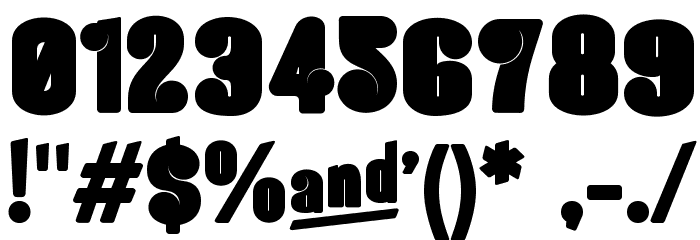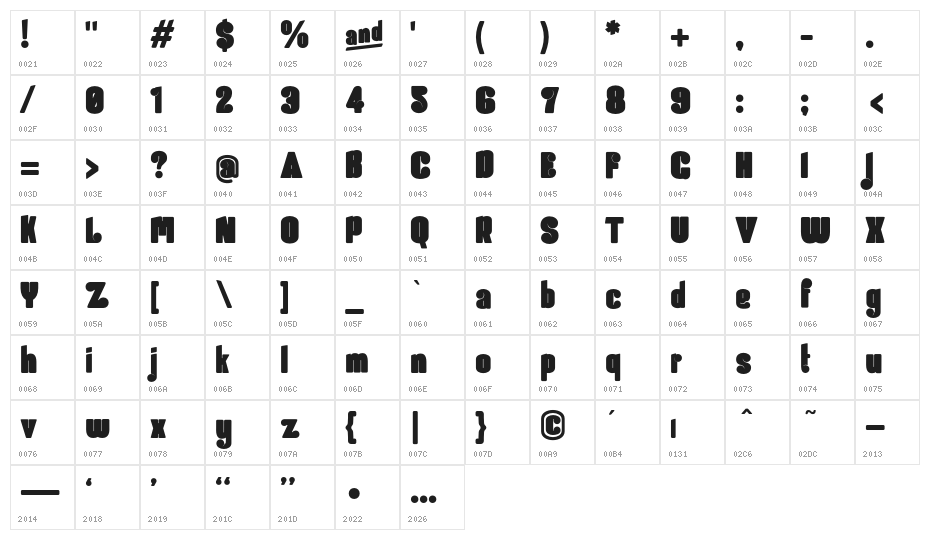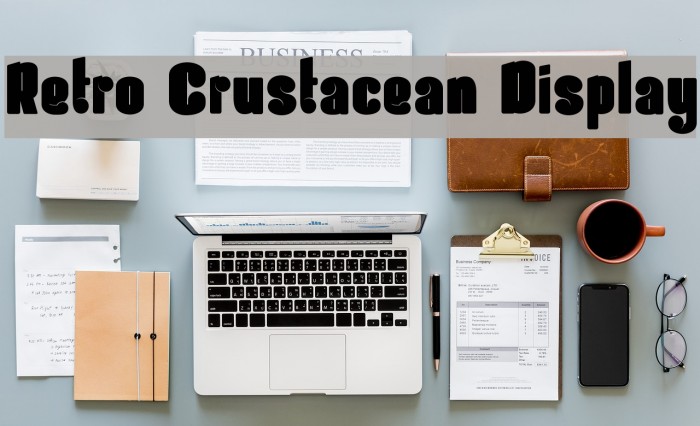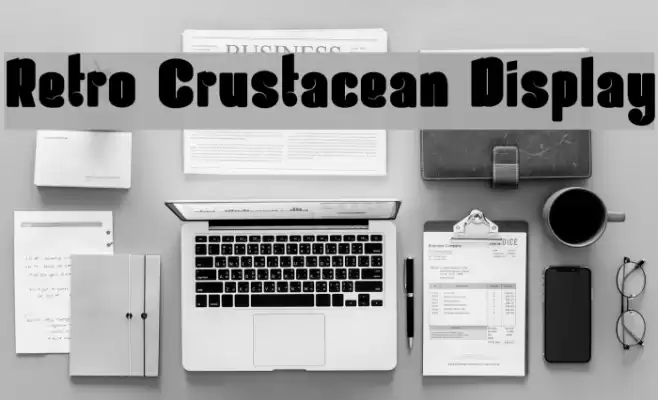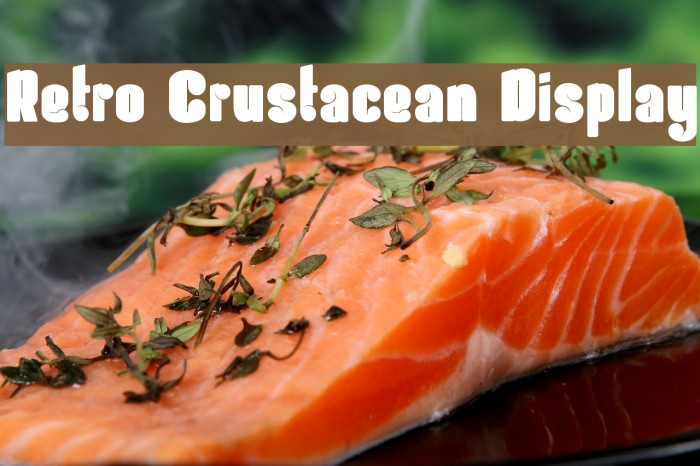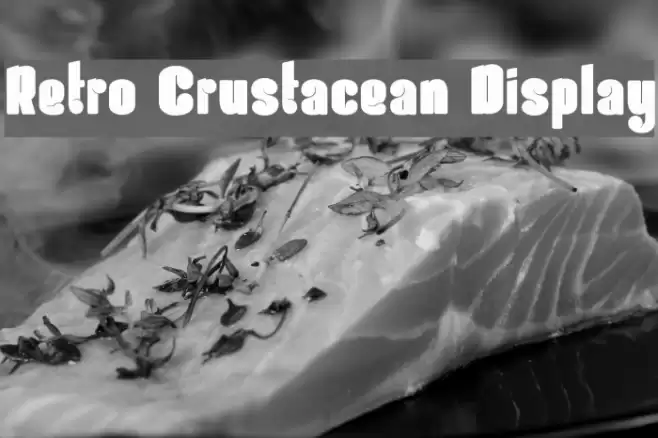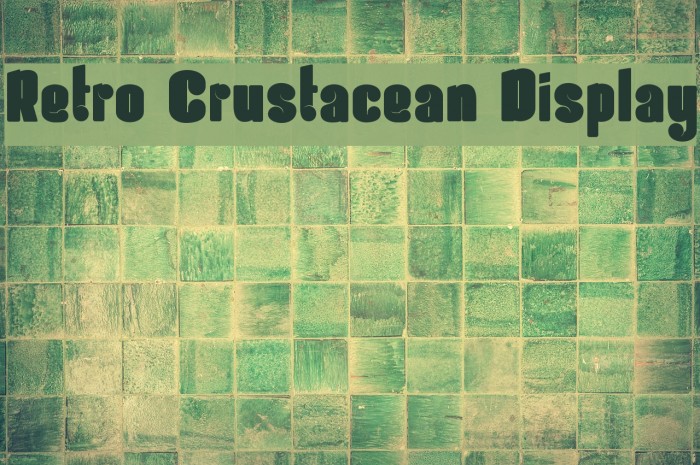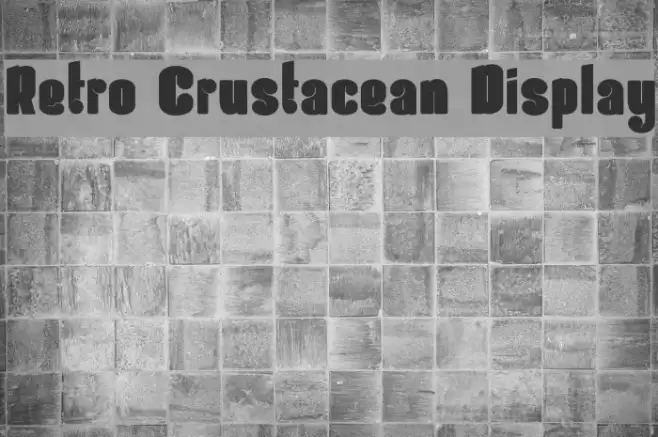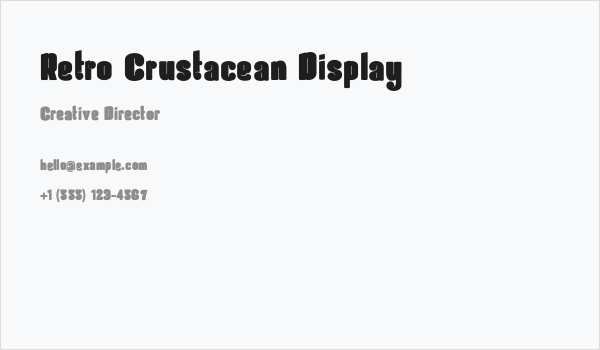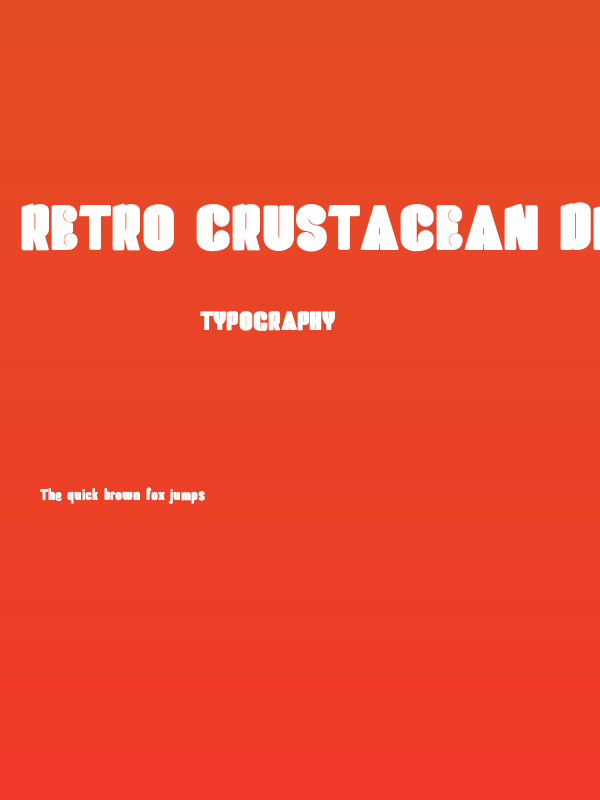
Retro Crustacean Display Font
Retro Crustacean Display Description
This bold and striking font features a unique blend of retro and modern aesthetics, characterized by its thick, rounded letterforms and playful, chunky style. The uppercase and lowercase letters maintain a consistent weight, creating a cohesive look that is both eye-catching and versatile. The numbers and special characters follow the same design principles, ensuring uniformity across all text elements. The font's heavy weight and distinctive style make it ideal for projects that require a strong visual impact.
| Overall Style | Retro, Decorative |
| Proposed Projects | Perfect for vintage-themed posters, eye-catching headlines, branding, and logo design. |